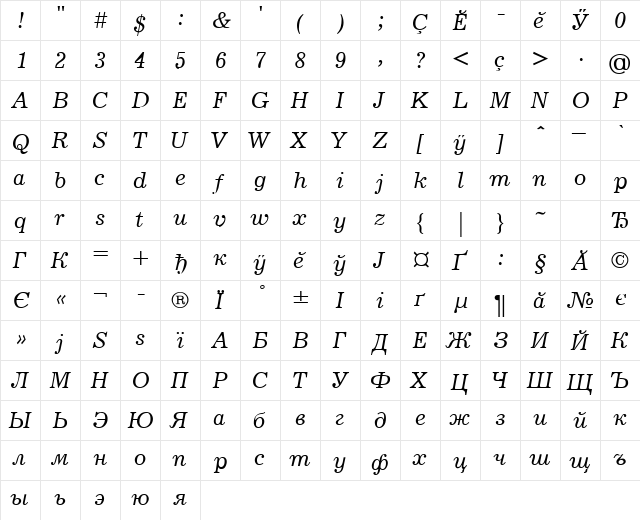
Journal italic Chuv CNP Italic
Design Context for Journal italic Chuv CNP Typeface
Journal italic Chuv CNP offers clean, dependable letterforms without strong stylistic allegiance, making it a practical choice for designers who need flexibility. Its italic angle brings a sense of urgency and motion to the letterforms.
Pro Tip: Try Journal italic Chuv CNP for annotation and caption copy alongside an upright companion — the contrast in angle creates a dynamic but ordered typographic system.